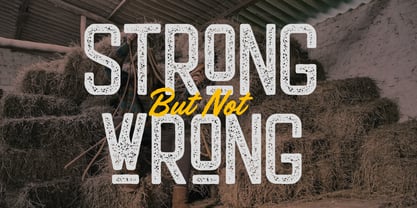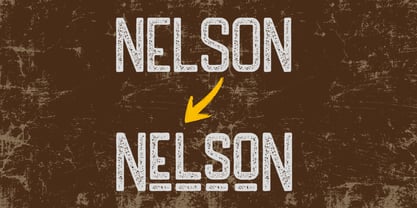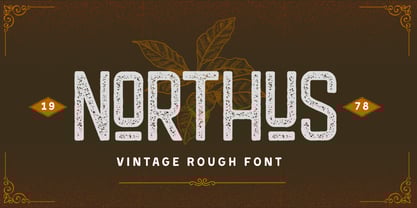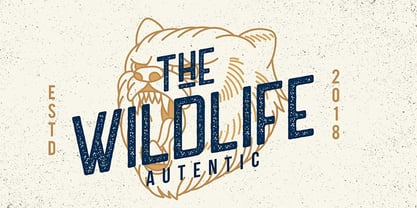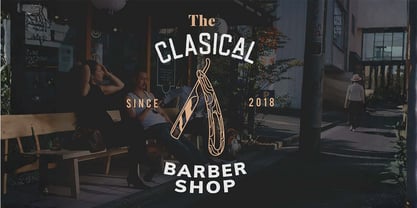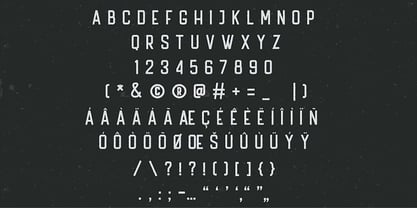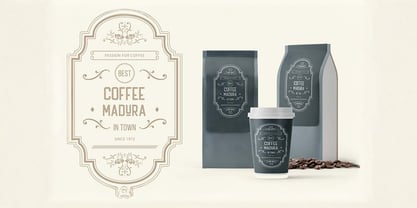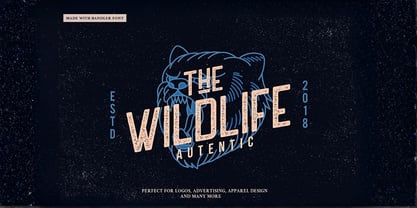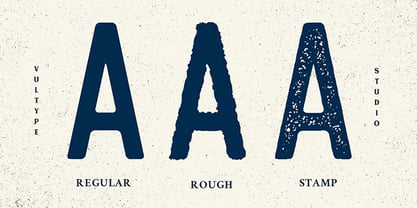
Northus
by Vultype Co
The Northus Font Family was designed by Candra Hamdani and published by Vultype Co. Northus contains 3 styles and family package options. More about this family
Are you looking for a font that instantly brings heritage, craftsmanship, and rugged authenticity into your design? Meet Burton – Vintage Rough Font, a bold display typeface crafted with a distressed texture that delivers a powerful retro character for logos, packaging, apparel, posters, and branding projects that need a true vintage punch. Burton isn’t just another vintage font—it’s a carefully textured, handcrafted typeface designed to help your brand stand out in today’s saturated visual world. With its rough, worn details and strong industrial structure, Burton adds depth, personality, and storytelling to any design. Why Burton Is the Perfect Vintage Font for Your Projects ✔ Authentic Rough Texture Burton’s distressed detailing gives every letter a natural, handcrafted look—perfect for retro branding, rustic product labels, or outdoor-themed graphics. ✔ Bold & Impactful Its thick, geometric shape creates a strong visual presence that grabs attention instantly—ideal for headlines, logos, signage, and packaging. ✔ Versatile for Many Niches Use Burton for: • Vintage logos • Coffee or craft brewery branding • T-shirt designs • Whiskey labels • Barbershop & apparel graphics • Retro posters & signage • Outdoor and adventure brands
Designers: Candra Hamdani
Foundry: Vultype Co